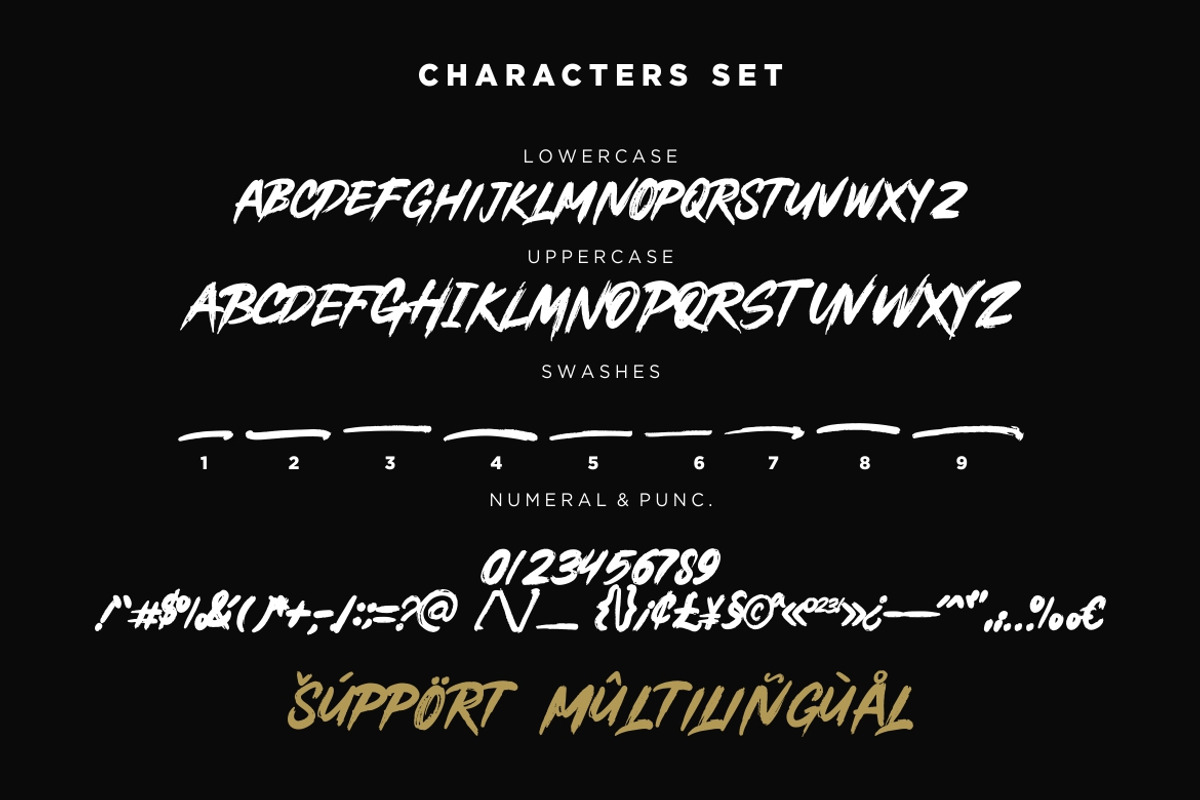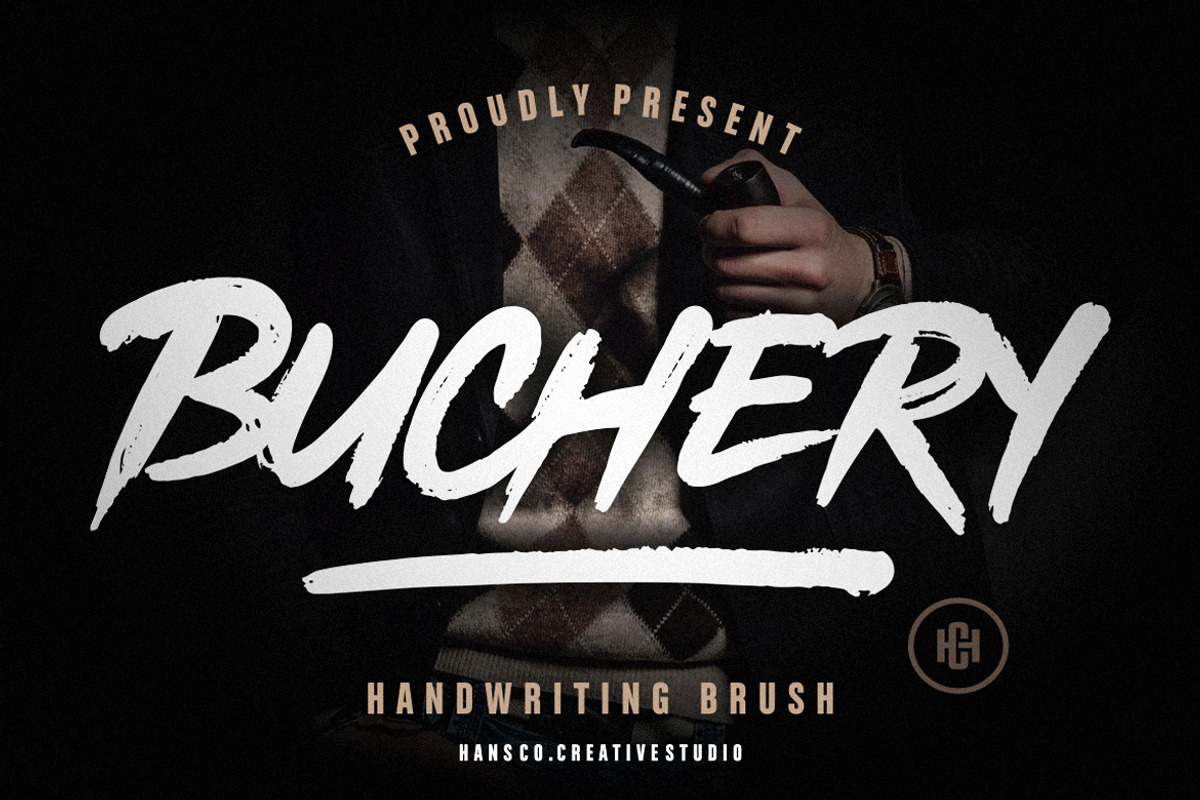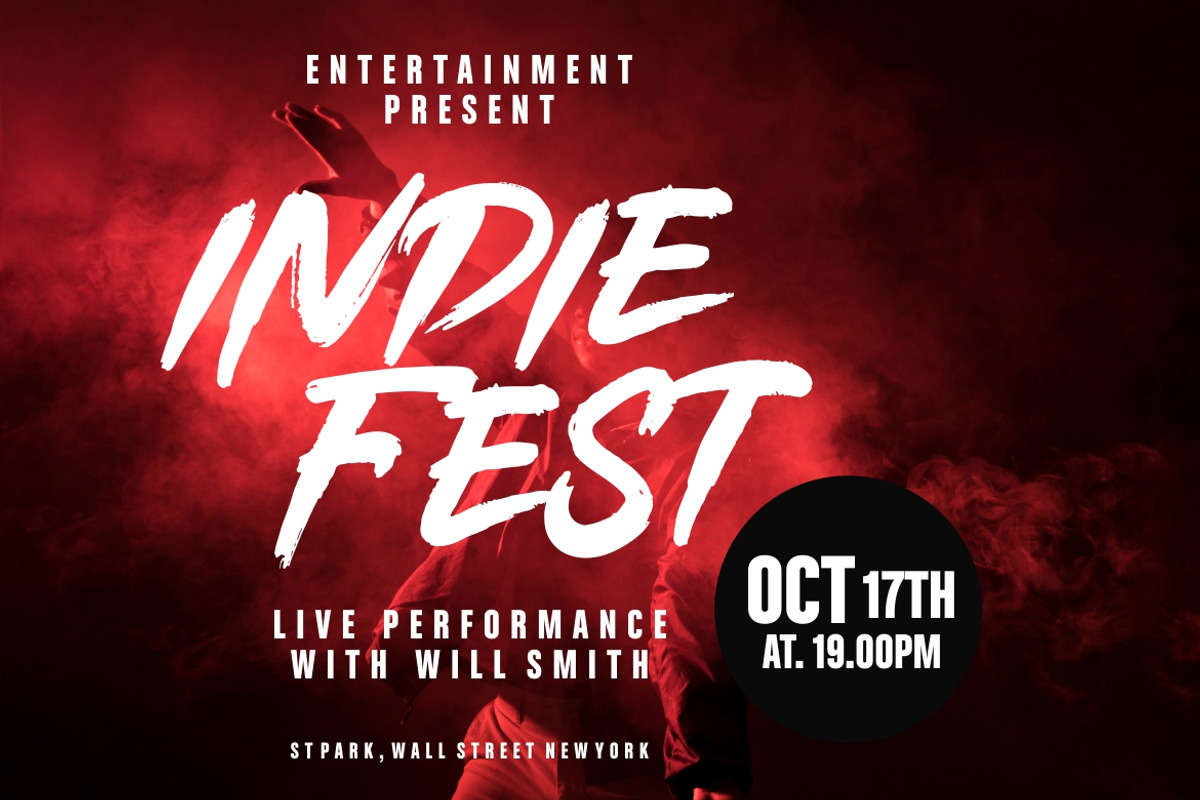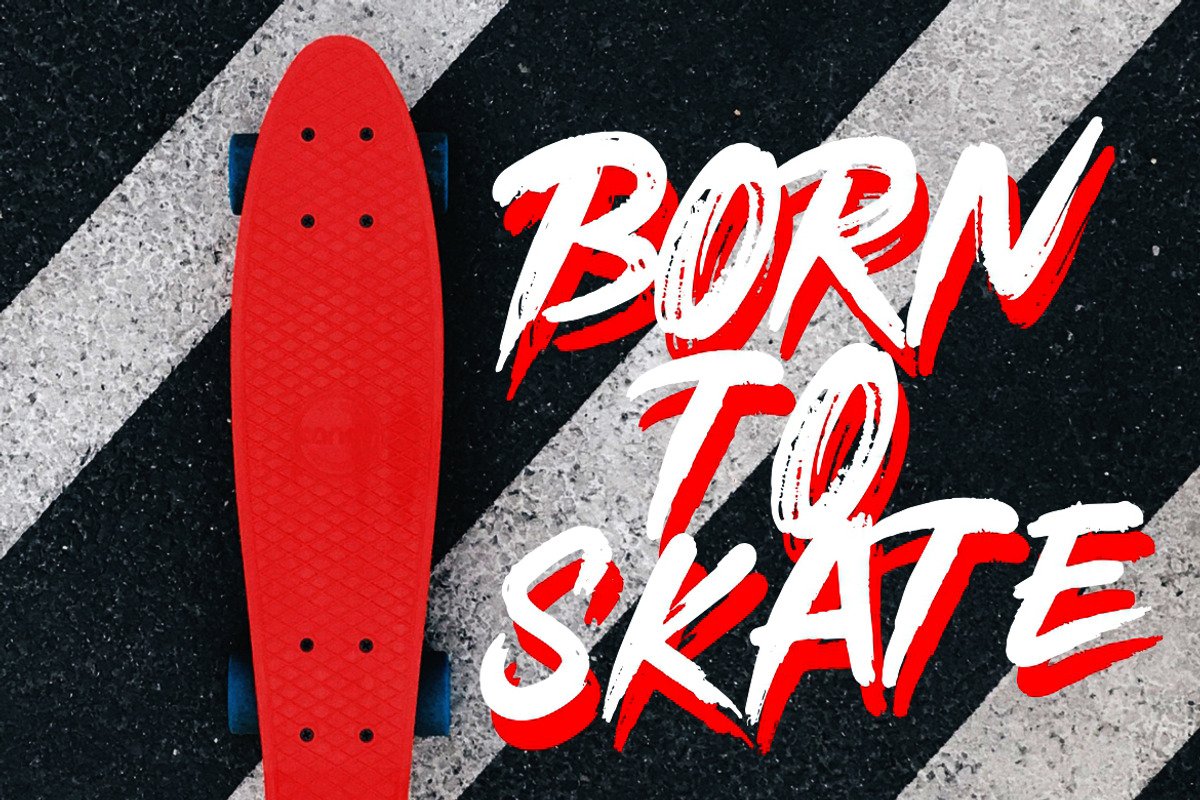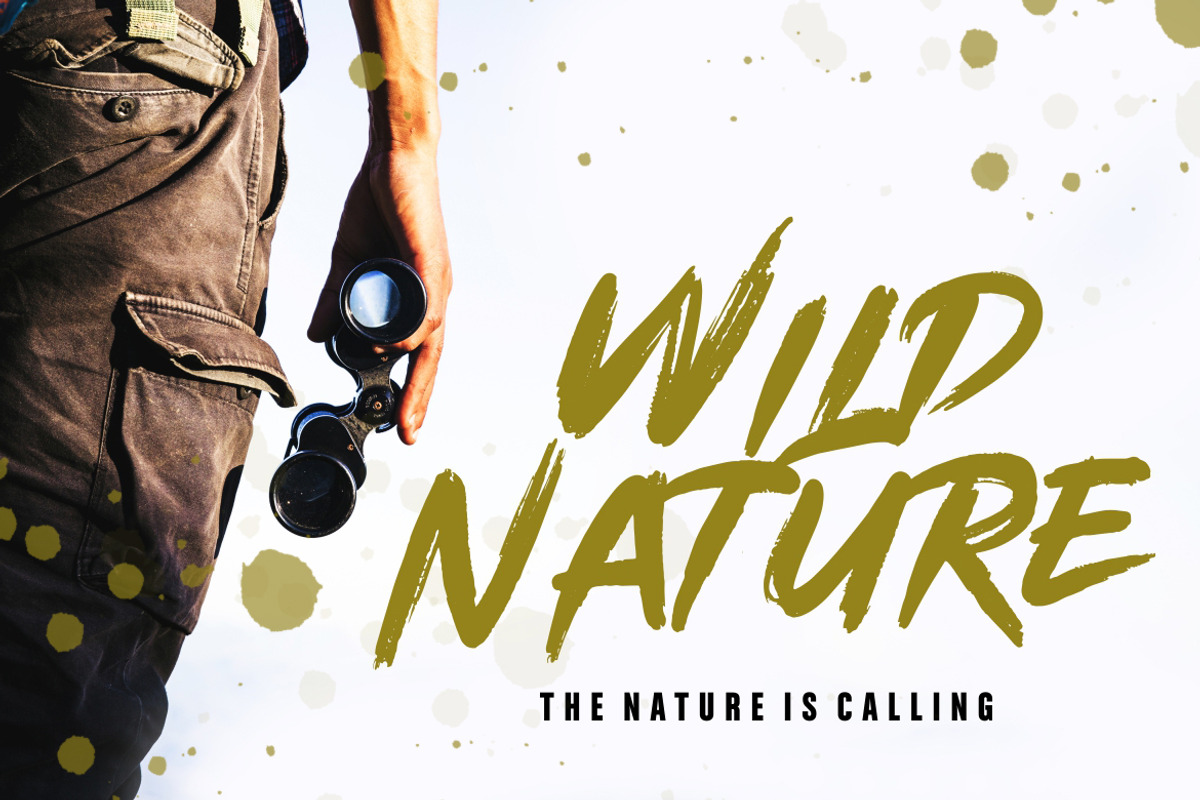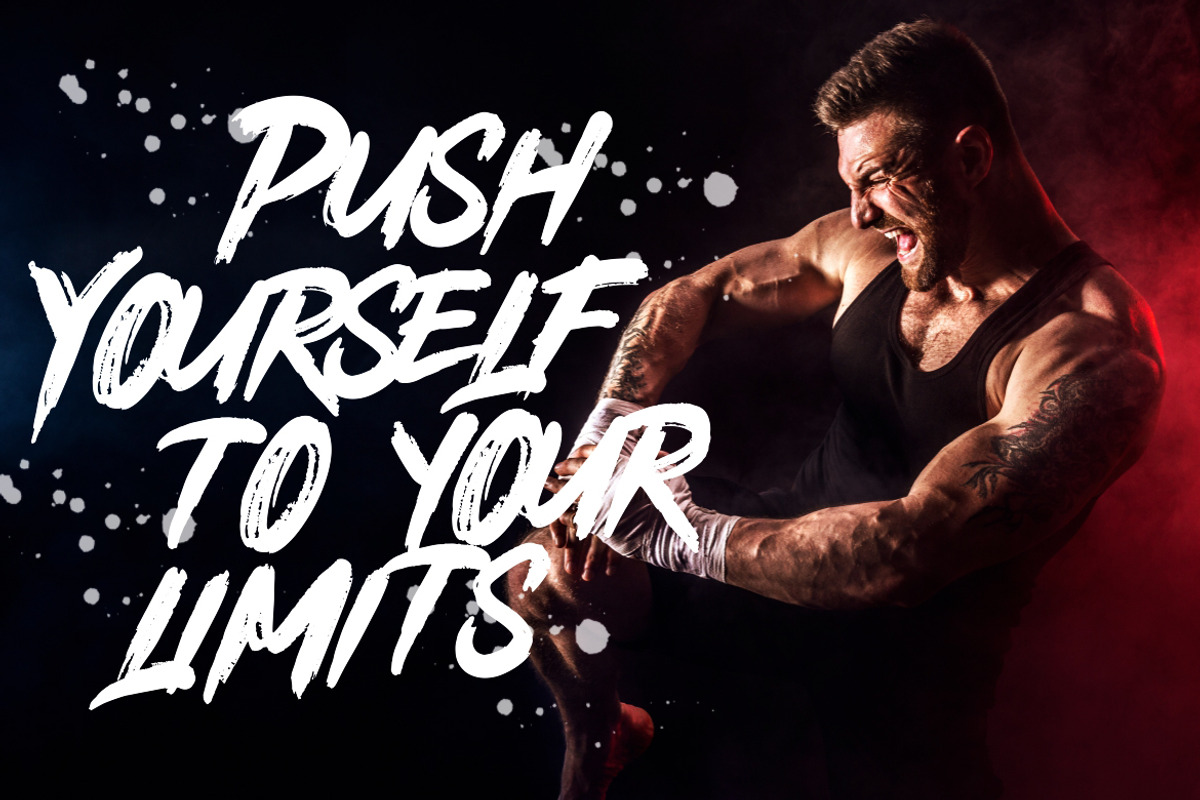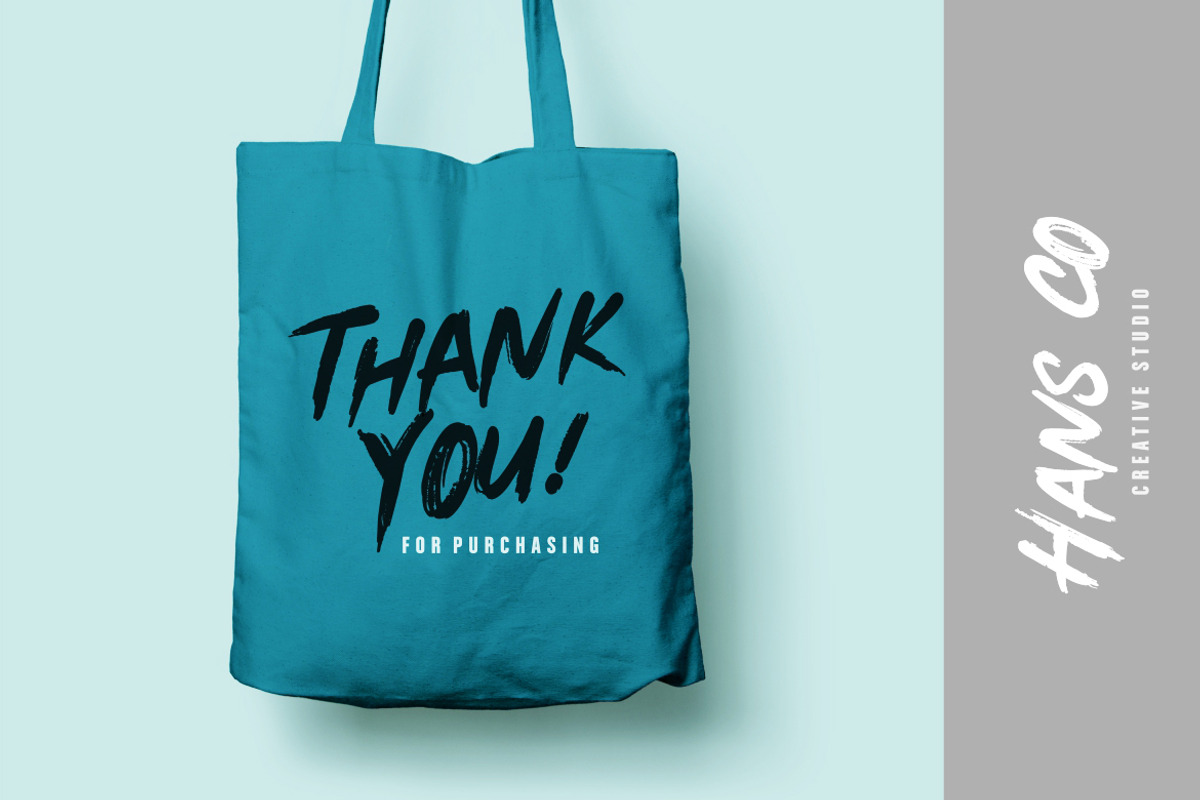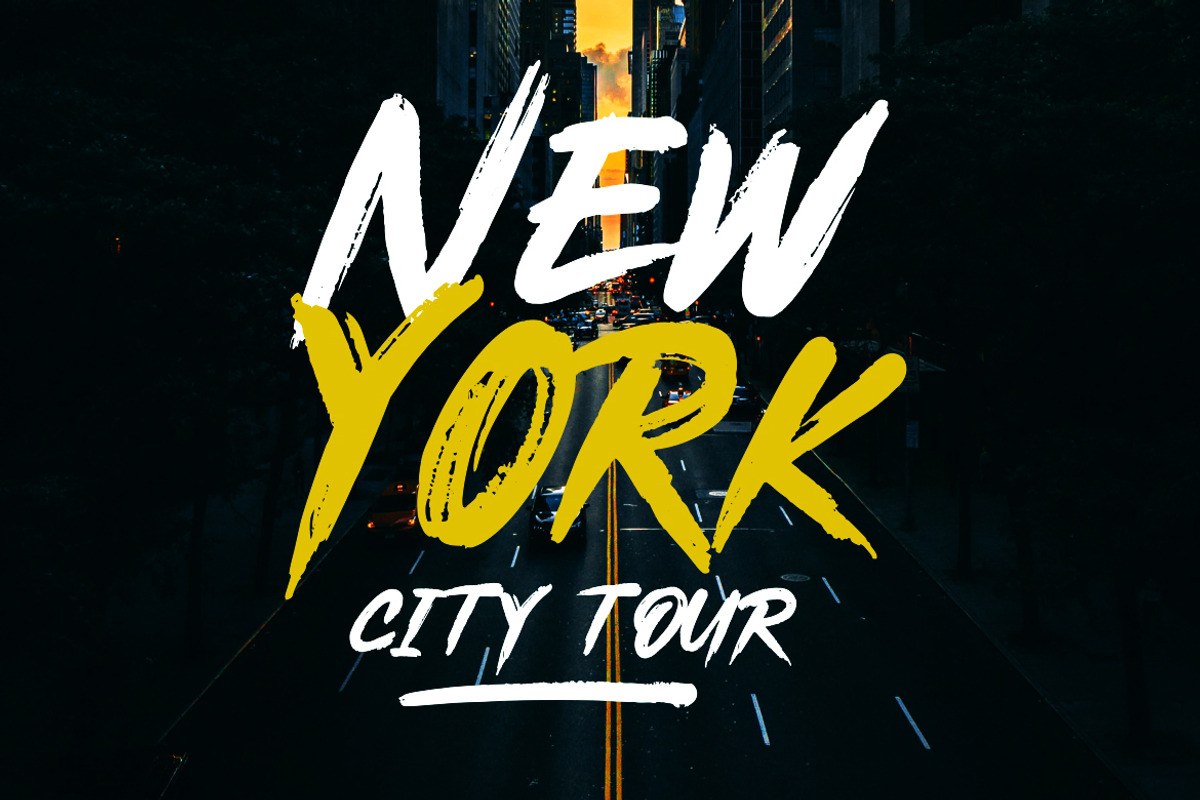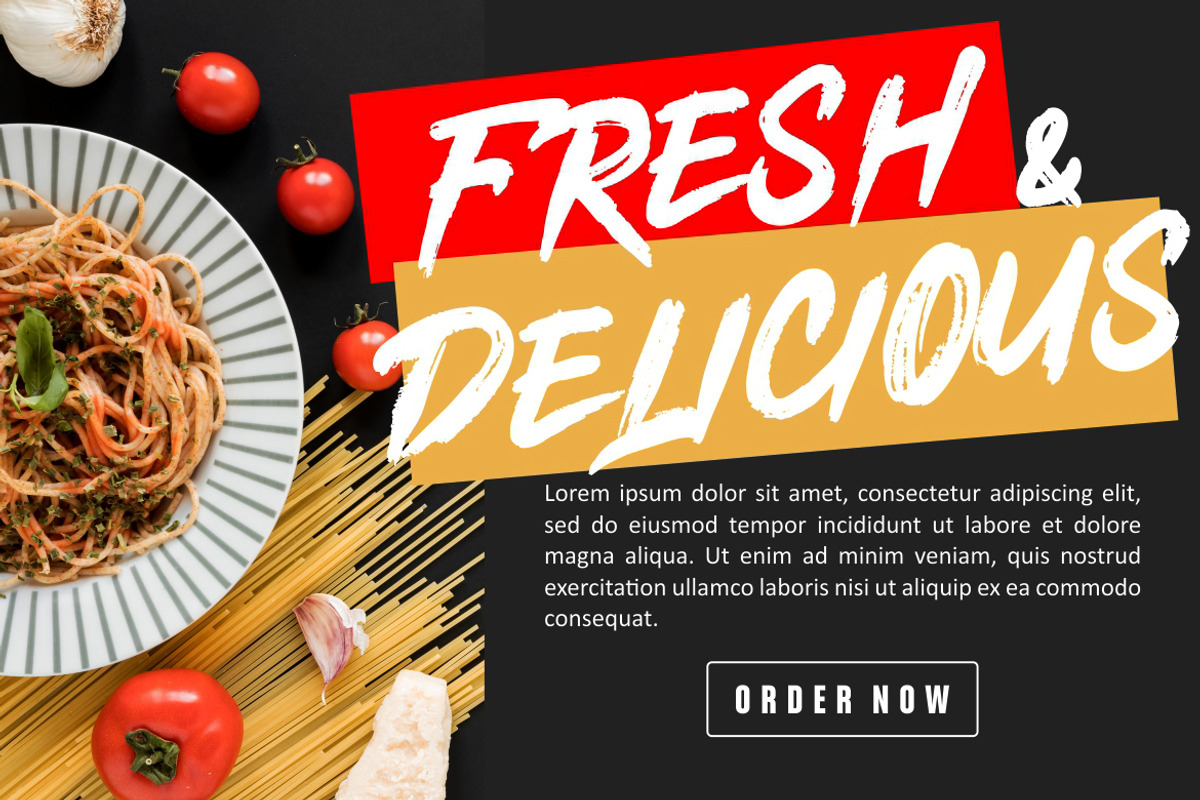
Buchery - Brush Font
Buchery is a handwritten bold and rough font with dry brush texture. You can get the swash brushes include as a alternate in this font. Buchery is suitable for logo, product branding, or for text overlay to any background image.